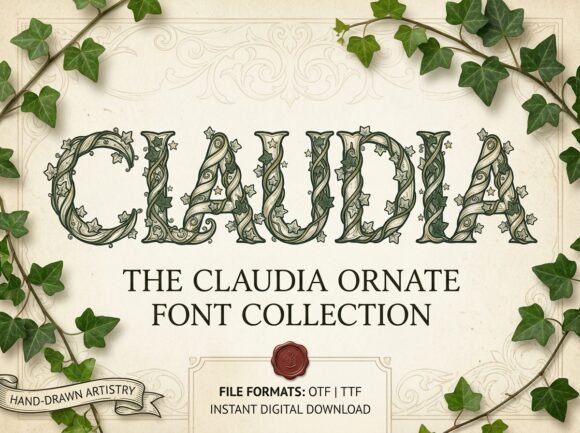
Discover the Whimsical World of Claudia: An Intricate Botanical Script
I’ll never forget the moment I stumbled upon the perfect font for a nature-inspired project. I was working on a branding campaign for an organic skincare brand, and I needed a font that would capture the essence of the natural world. That’s when I discovered Claudia, an intricate botanical script that reimagines the alphabet as a living garden. With its woven vines, delicate leaves, and spiraling tendrils, Claudia instantly became my go-to font for any project that celebrates nature’s complexity.
A Personal Review: What I Love About Claudia
So, what makes Claudia so special? Here are a few things that I absolutely love about this premium font:
- ✨ Intricate details: Every letterform is composed of beautiful, intricate details that give it a custom-lettered feel.
- ✅ Fine-line aesthetic: The font’s fine-line “sketchbook” aesthetic provides a delicate, hand-drawn look that’s perfect for projects that require a touch of elegance.
- 🌿 Botanical theme: The font’s botanical theme is perfect for nature-themed projects, from book covers to garden-to-table menus.
While Claudia is an amazing font, there are a few quirks to keep in mind:
- 🤔 Legibility at small sizes: While Claudia is stunning at larger sizes, it can become a bit tricky to read at smaller sizes. Make sure to test it out at different sizes to ensure it works for your project.
- ⚠️ Glyph limitations: While Claudia has a range of glyphs and stylistic alternates, it’s not a font that’s designed for body text. It’s best used for headlines, titles, or short paragraphs.
The Story Behind Claudia
Claudia was designed by a talented type designer who was inspired by the beauty of nature. According to the designer, Claudia was created as a way to bring the natural world into the world of typography. The designer spent countless hours researching and sketching different botanical elements, from leaves and flowers to vines and tendrils. The result is a font that’s both elegant and whimsical, perfect for projects that celebrate the beauty of nature.
| Font Name | Claudia Font |
| Author | Raholco |
| What is Claudia? | Claudia is an intricate botanical script font that’s perfect for projects that celebrate the beauty of nature. |
| Is Claudia a difficult font to read? | While Claudia is a decorative font, it can be a bit tricky to read at smaller sizes. However, it’s perfect for headlines, titles, and short paragraphs. |